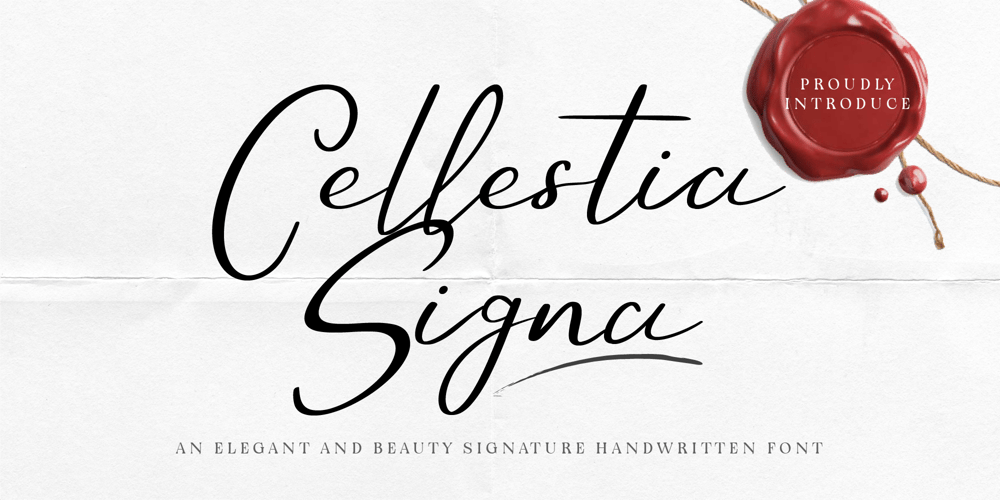
CF Cellestia Signa
CF Cellestia Signa font
CF Cellestia Signa Font Family was designed by Gilang Mei Nugraha, Frederik Aristaputra and published by Creatifont Studio. CF Cellestia Signa contains 2 styles and family package options. Cellestia Signa is a stunning handwritten font that radiates elegance and natural beauty. Its fluid, graceful strokes mimic authentic handwriting, bringing a whimsical charm to every letter. Designed with smooth curves and well-balanced proportions, this font exudes sophistication while maintaining a natural and approachable feel.Perfect for branding, wedding invitations, logos, and other creative projects, Cellestia Signa blends timeless elegance with modern style, making it a versatile choice for elevating your designs. Let its gentle flow and effortless character add a touch of refinement to your typography.A SUMMARY OF WHAT’S INCLUDED:- Standard Character A-Z, a-z, 0-9, Punctuation & symbols- Regular and Italic- Multilingual Support- Works on PC & Mac- Simple installation- Accessible in Adobe Creative Suite (Ai, Ps, Id, etc.) even work on Microsoft Word.- PUA Encoded Characters – Fully accessible without additional design software.🌟If you come across any issues or notice anything we might have overlooked while using this product, please feel free to reach out to us. We greatly value your feedback as it helps us enhance and refine our products. Thank you!